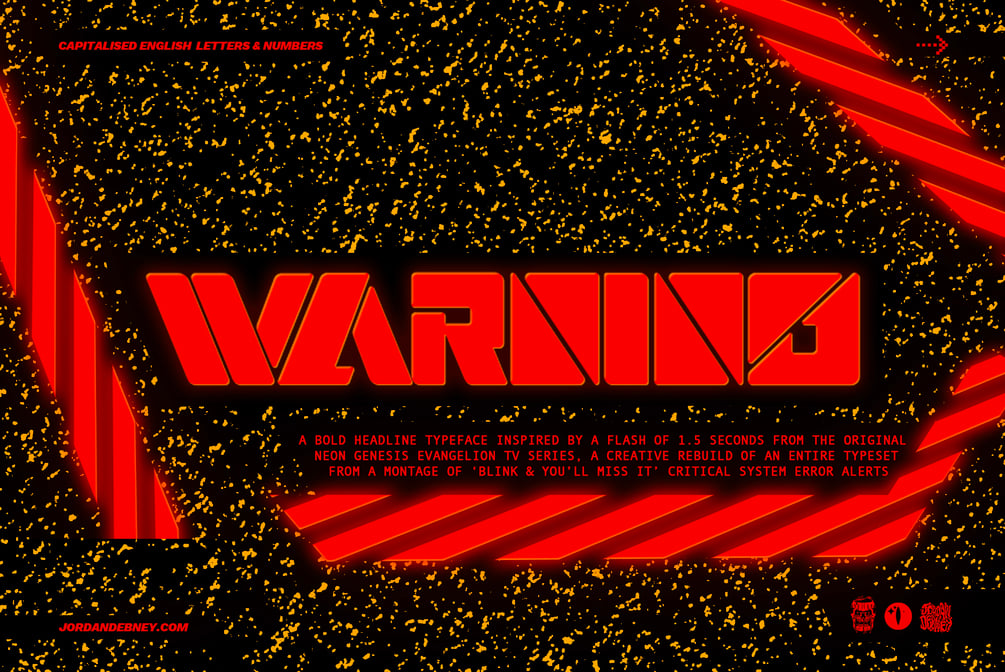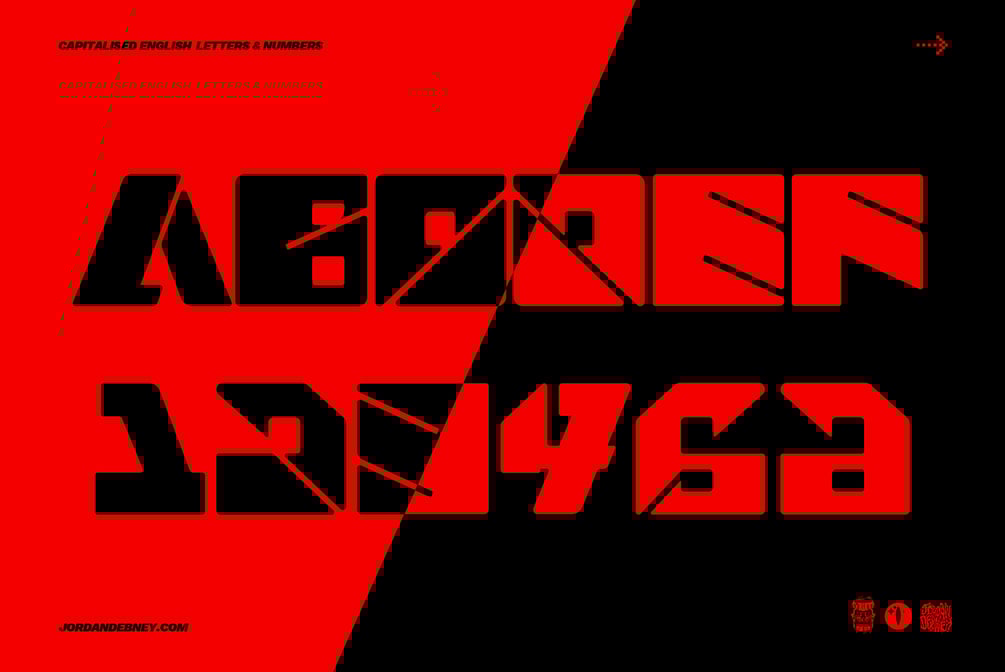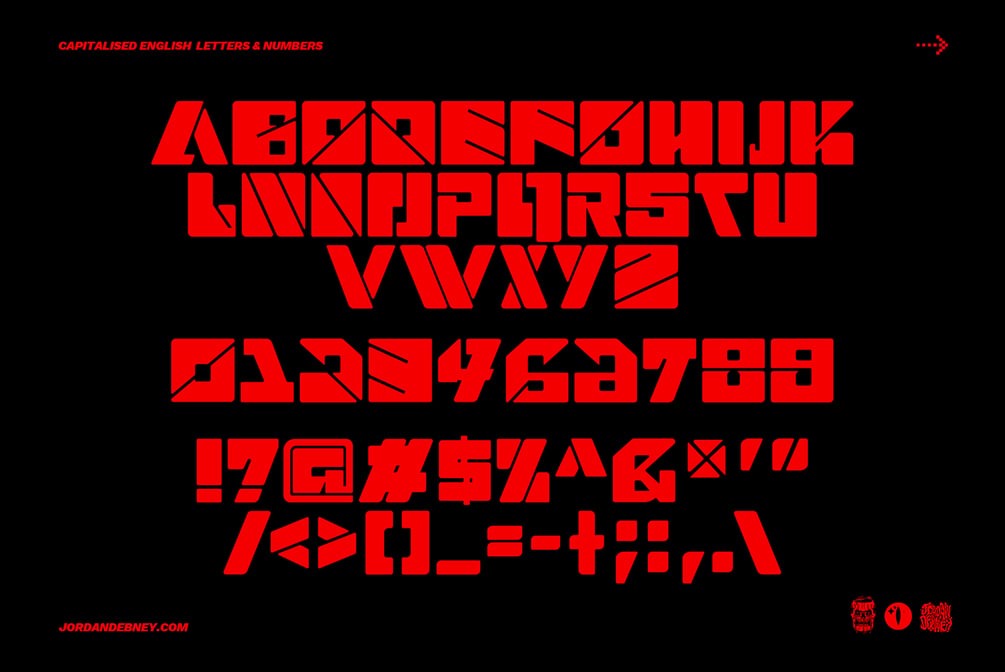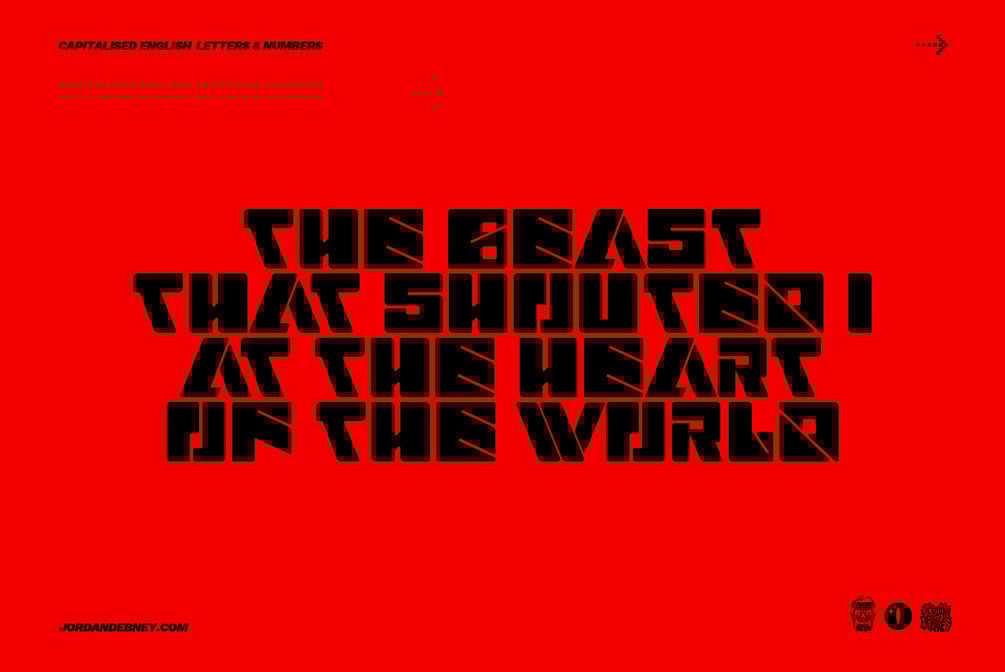
WARNING TYPEFACE
A BOLD HEADLINE TYPEFACE INSPIRED BY A FLASH OF 1.5 SECONDS FROM THE ORIGINAL NEON GENESIS EVANGELION TV SERIES, A CREATIVE REBUILD OF AN ENTIRE TYPESET FROM A MONTAGE OF ‘BLINK & YOU’LL MISS IT’ CRITICAL SYSTEM UI/GUI ERROR ALERTS.
◆ HAND-DRAWN GLYPHS
◆ INSPIRED BY 'NEON GENESIS EVANGELION' ALERT UI/GUI
◆ CAPITALISED ENGLISH LETTERS AND NUMBERS